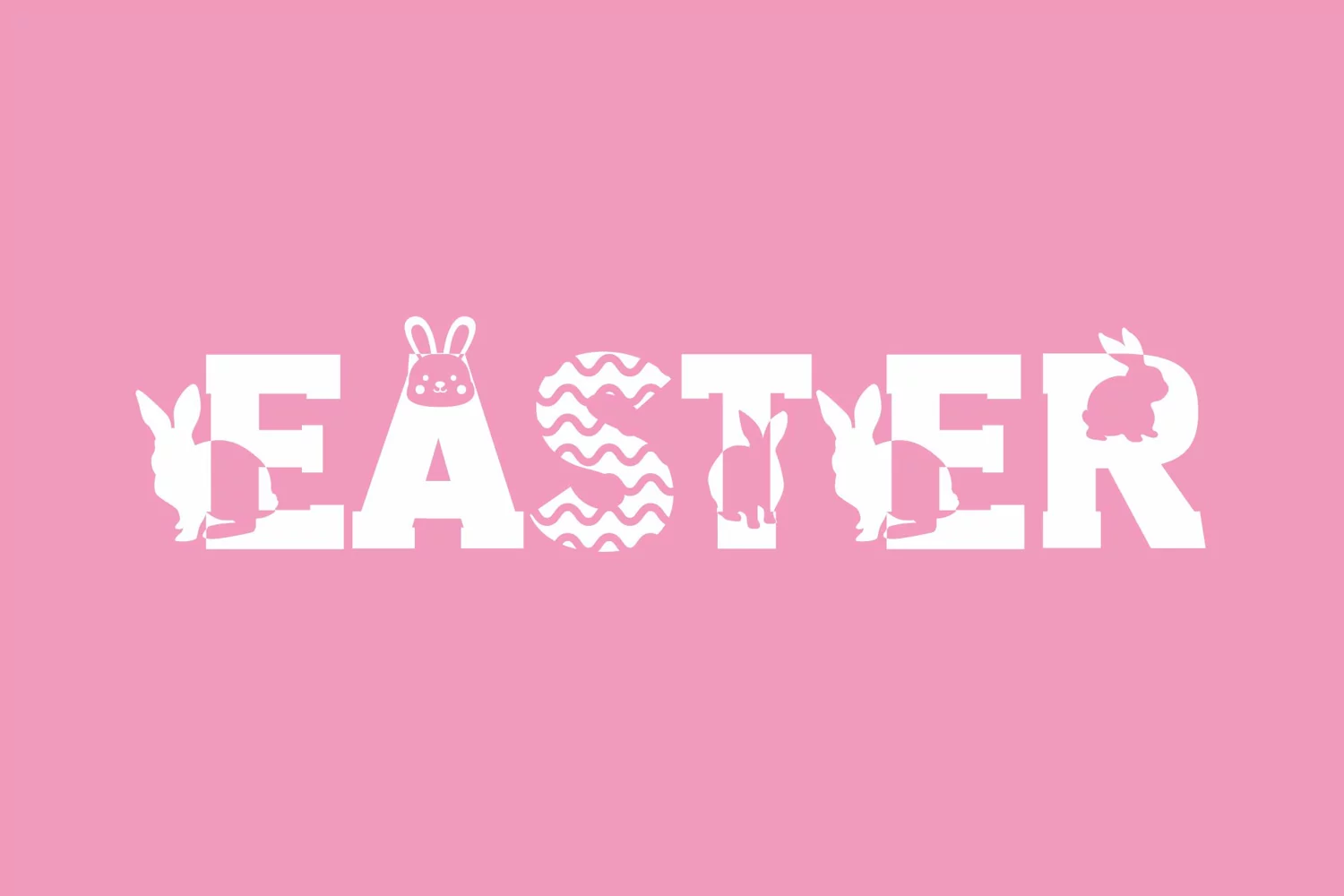
Easter Silhouette decorative font.
Easter is an adorable quirky decorative font. It will add an incredibly joyful touch to your designs. Fall in love with its playful style and use it to create beautiful stationary art, eye-catching social media posts, and much more! Easter is a Christian holiday that celebrates the resurrection of Jesus Christ. Easter is celebrated by Christians all over the world and is a time for family, friends, and faith.